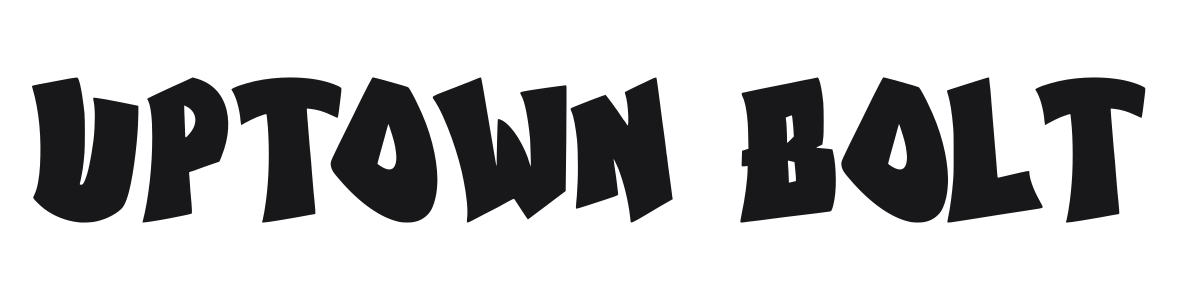
Uptown Bolt
by Asep Rendi
Uptown Bolt is a heavy groovy display face with a wavy baseline and chunky organic strokes drawn straight from 1960s-70s psychedelic poster culture. Each character shifts and sways with loose, hand-crafted energy, making the whole word feel alive. Strong at large sizes for music branding, posters, and anywhere a retro counterculture edge is the point.